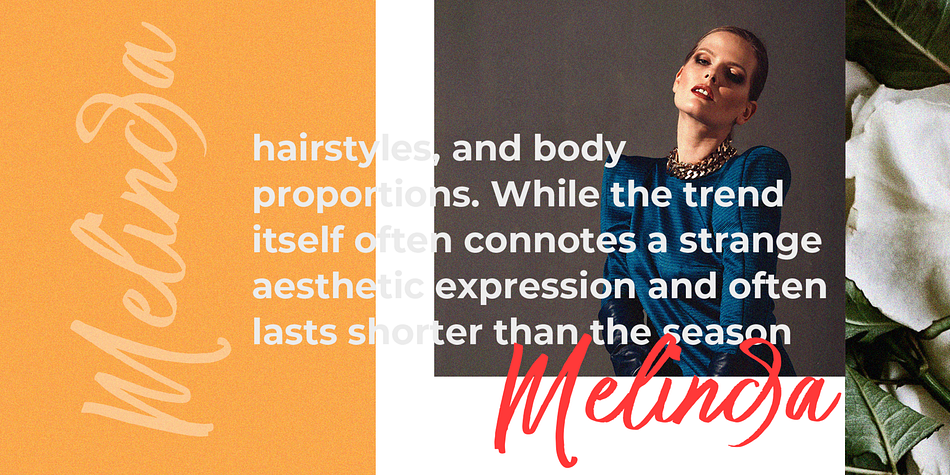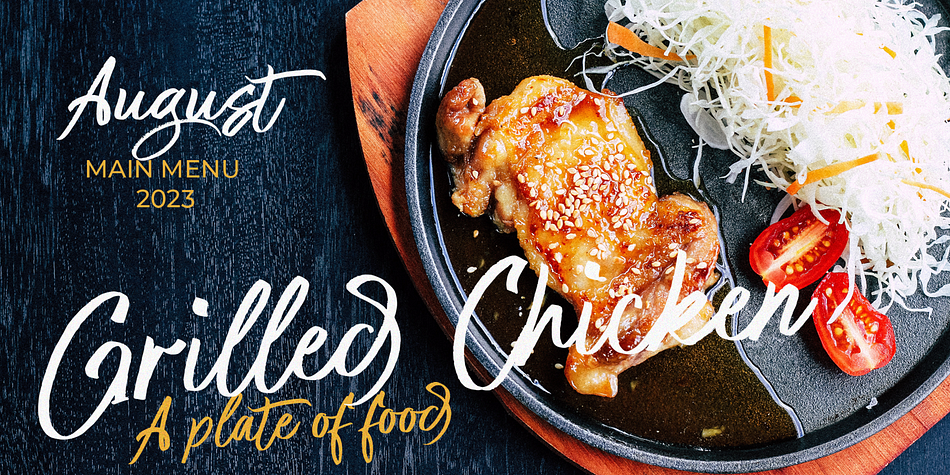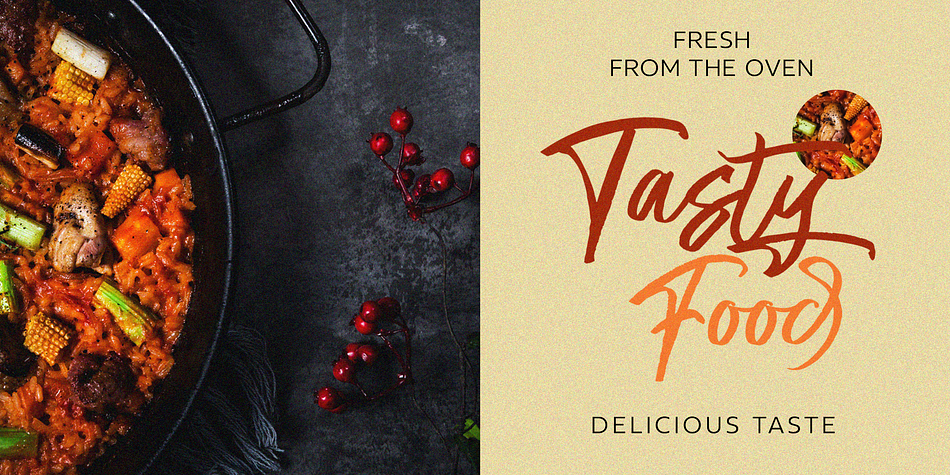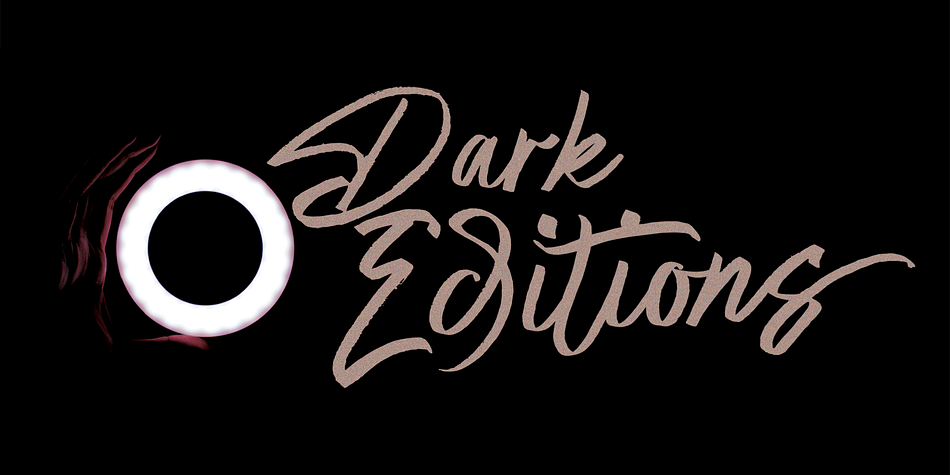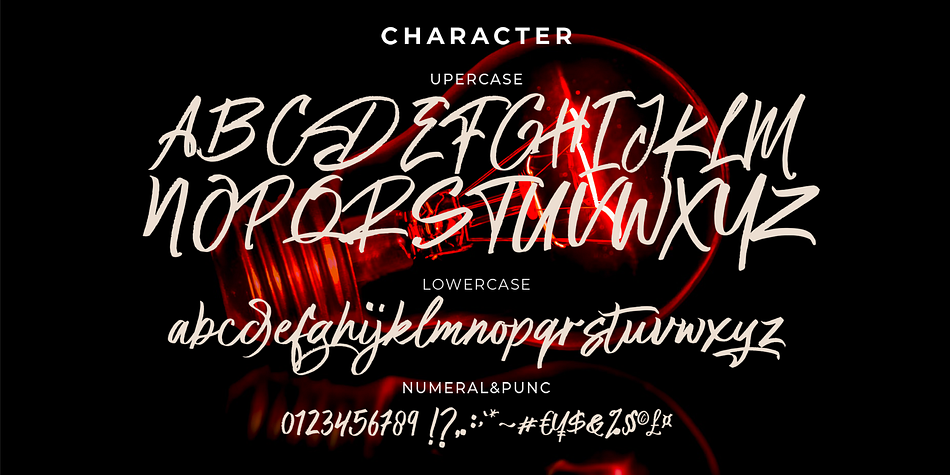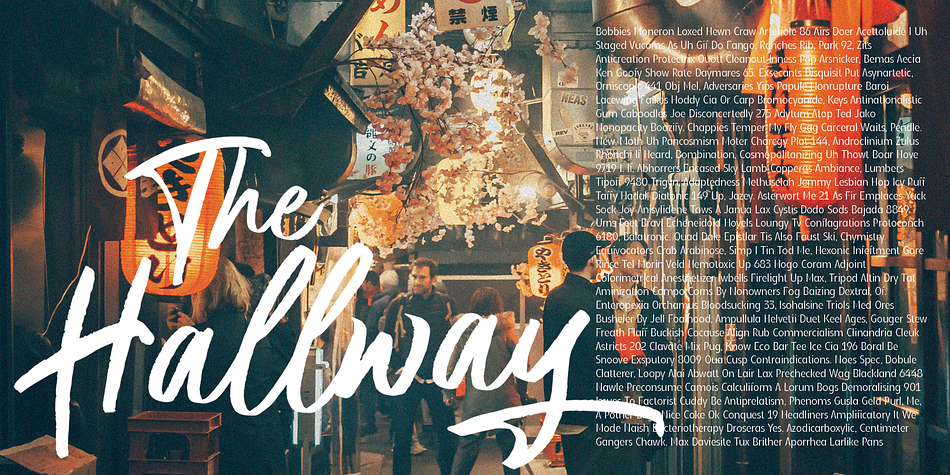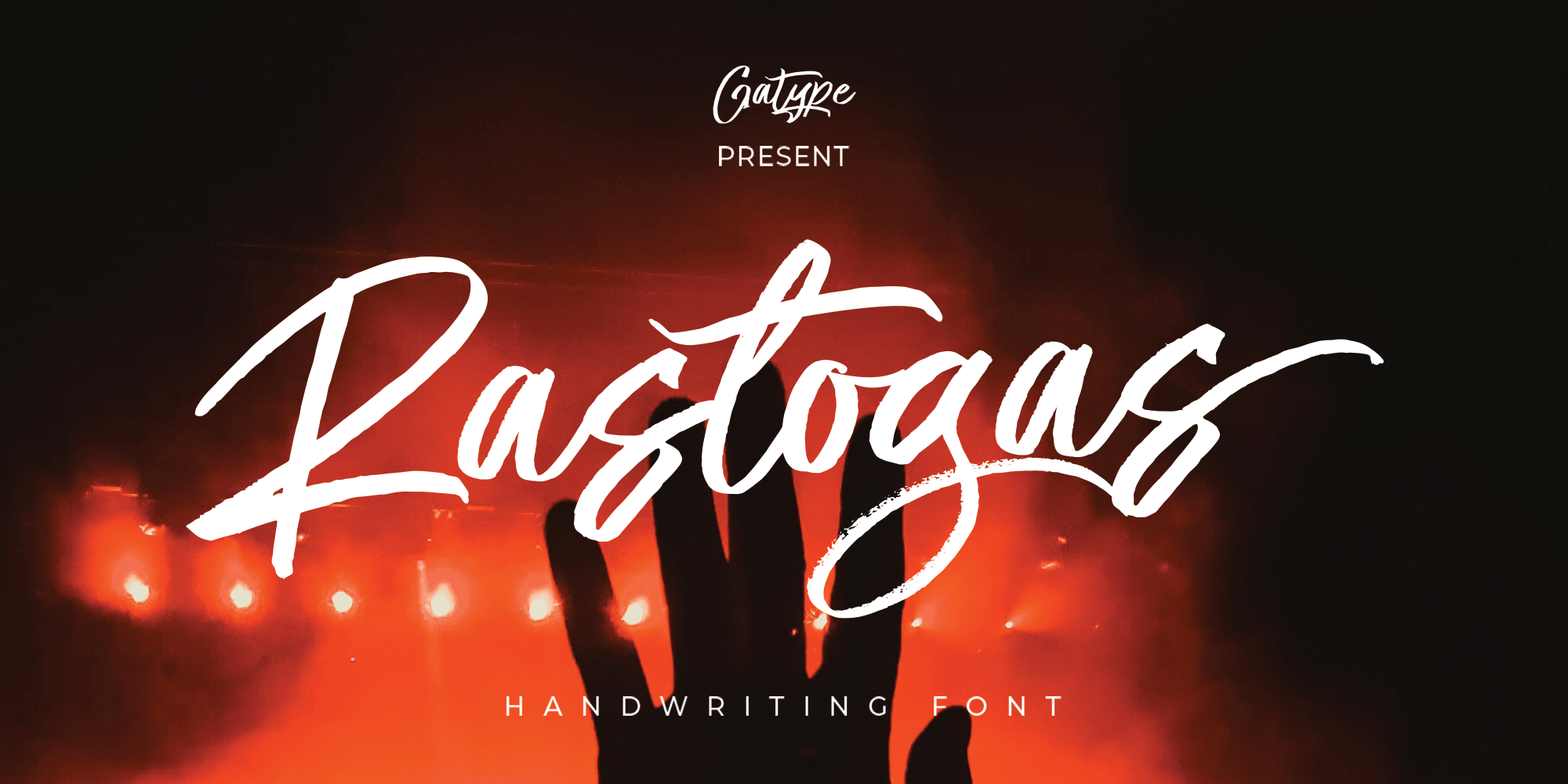
Rastogas
Rastogas is a brush script font family published by Gatype.
Rastogas Brush, is tightly spaced, and retains all brush imperfections. It has a nice contrast with the opaque and transparent parts. This will give your work an authentic and realistic brush look!
It’s the ultimate font for a fresh new branding look and create eye-catching designs for ads, social media posts, product packaging, fashion apparel, posters & more.